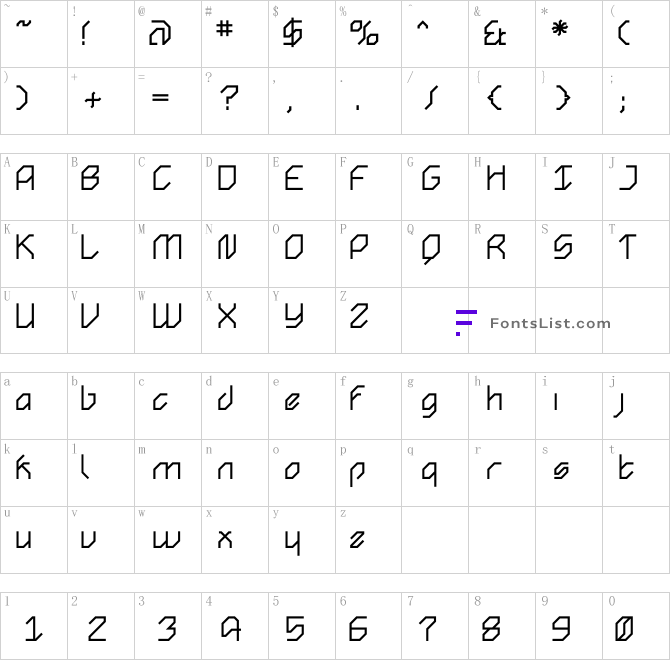
- Font Name:AngolSharp Bold
AngolSharp-Bold.ttf is a very beautiful artistic font, AngolSharp-Bold.ttf is widely used in the design and printing of various books and pictures,AngolSharp-Bold.ttf has a strong visual impact,AngolSharp-Bold.ttf is a commonly used font in newspapers, magazines and books, and is used in posters, e-commerce Poster design, store design, logo design, font design and other fields.AngolSharp-Bold.